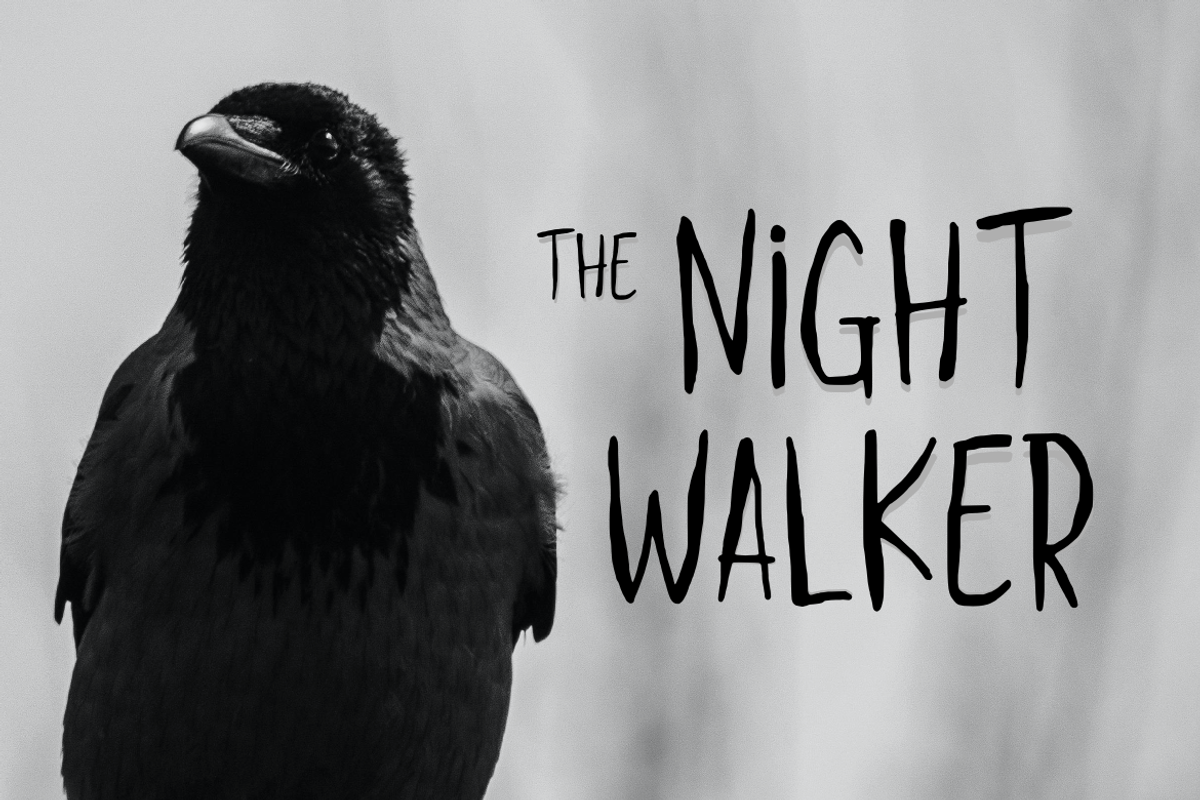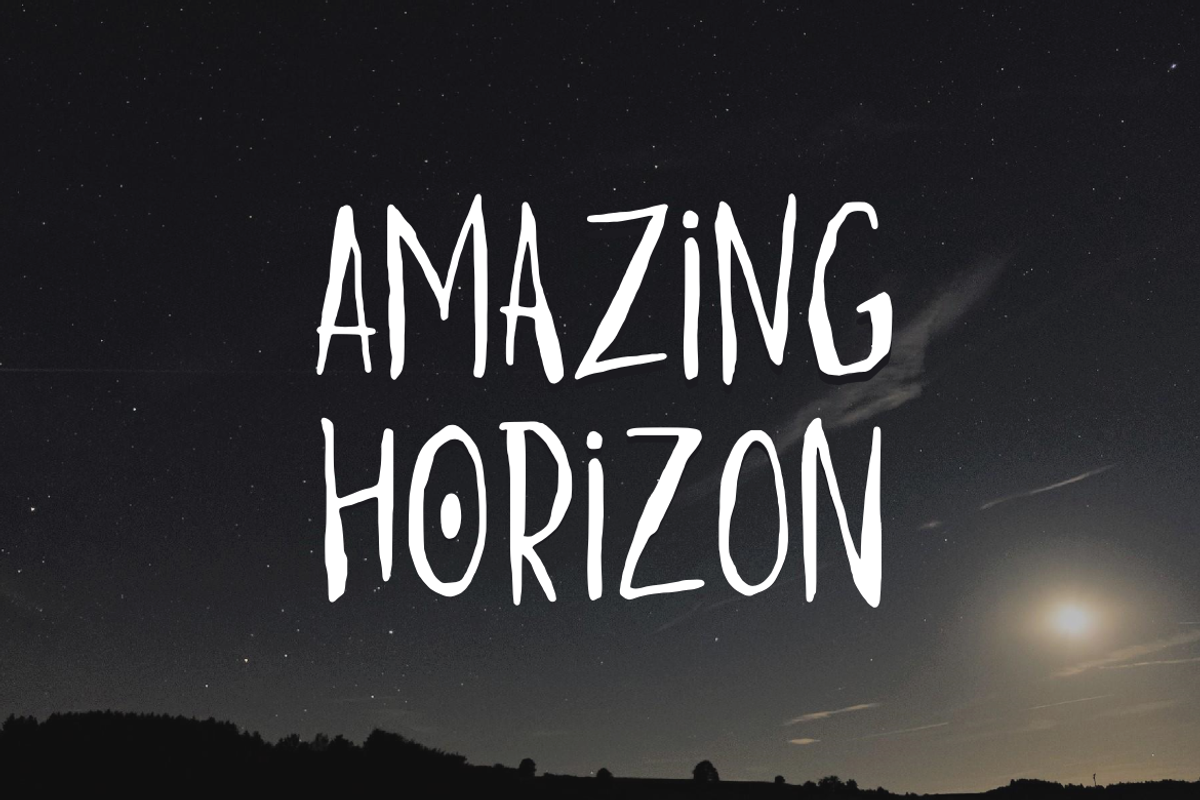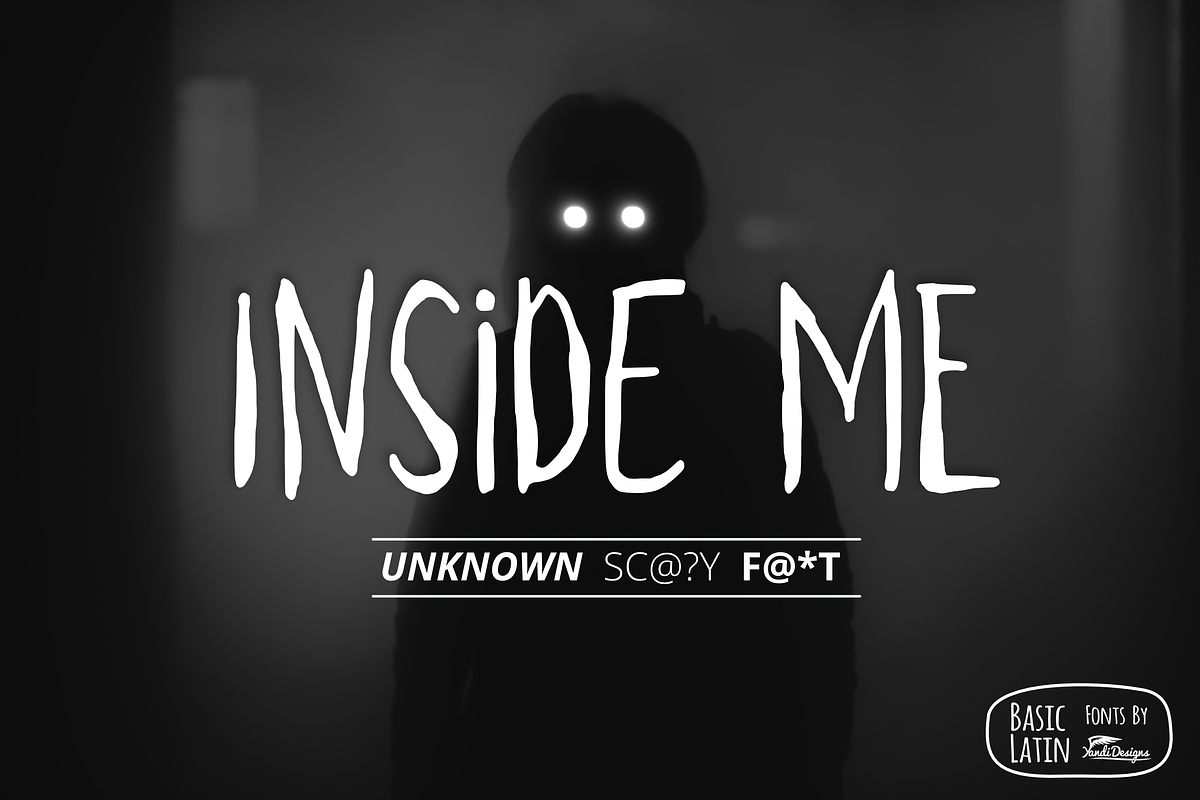
Inside Me Font
Just simple font , suitable for many project , quotes, logo , doodle, heading , title etc.
Inside Me Font by YandiDesigns fits naturally into Branding, posters, packaging, typography.